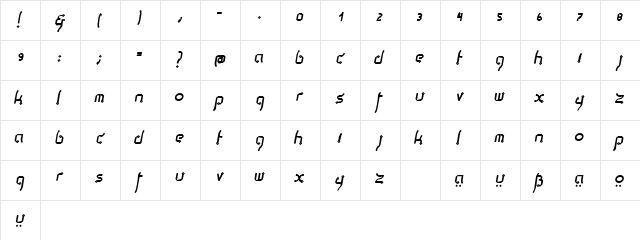
Thaipe is a composed and adaptable typeface that performs quietly and consistently across a wide range of design contexts. The slanted form adds forward momentum and visual energy.
Pro Tip: Use Thaipe for emphasis, pull quotes, and subheadings where its slanted energy can add rhythm to the layout.